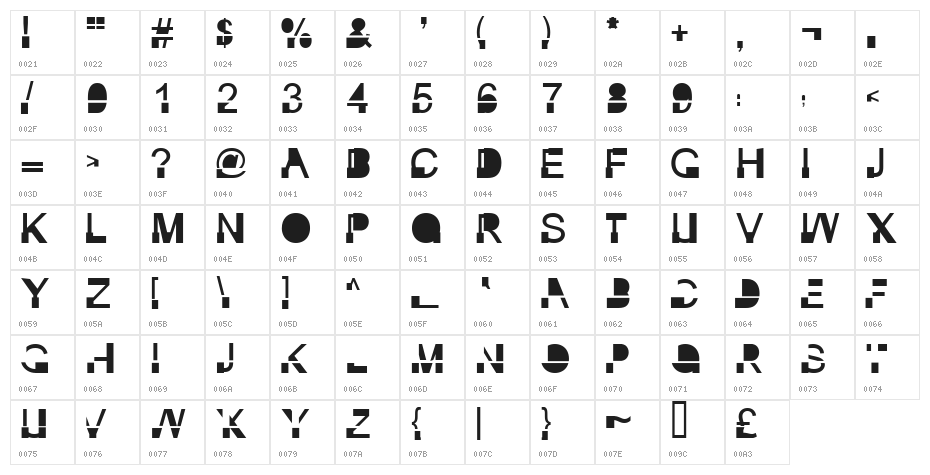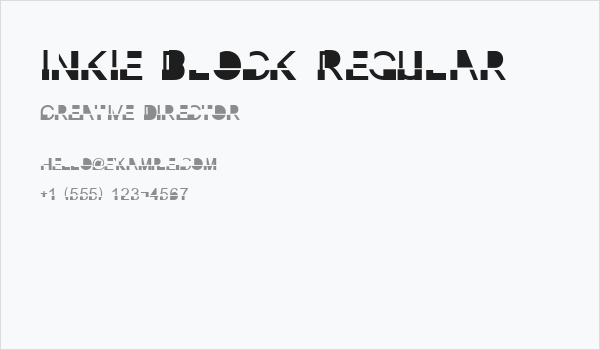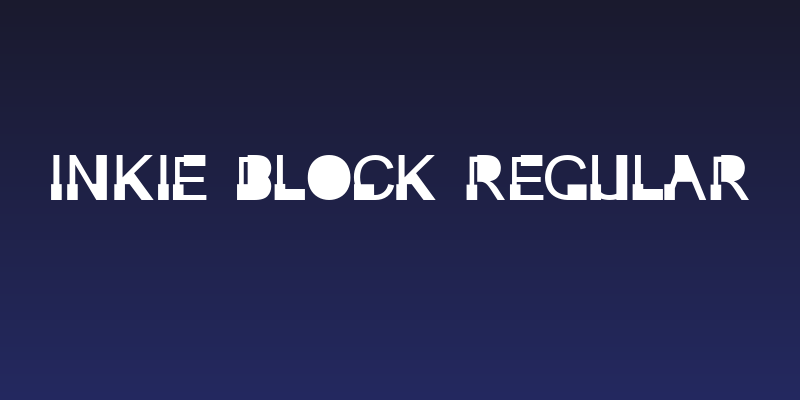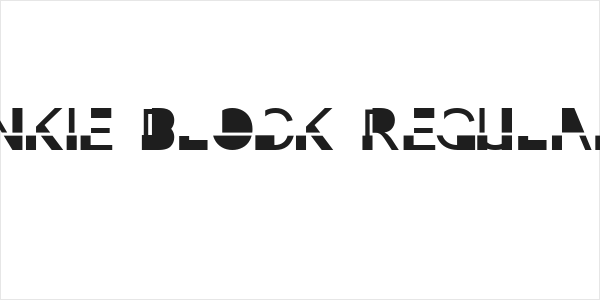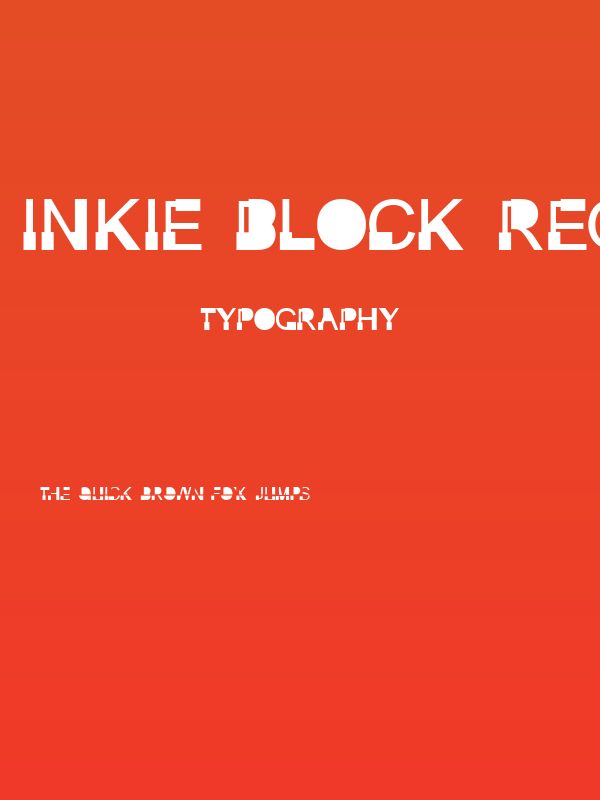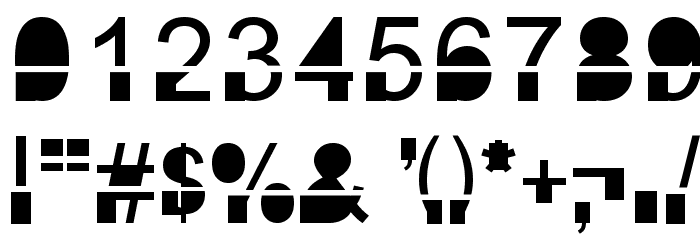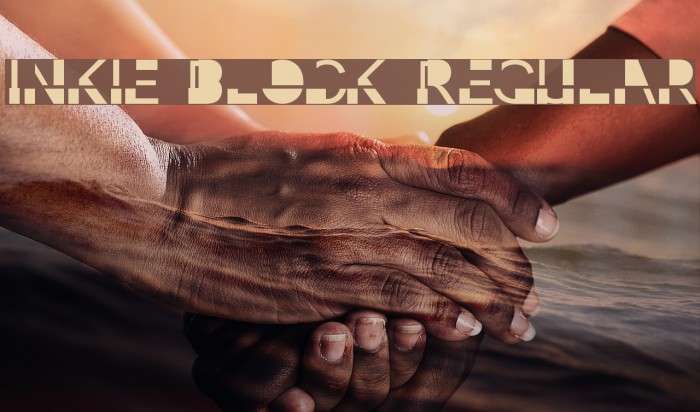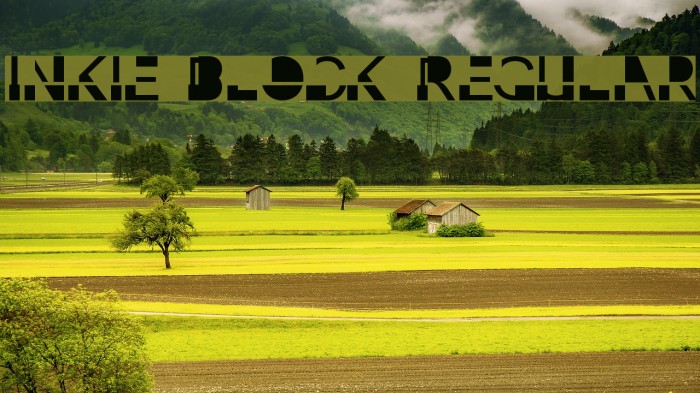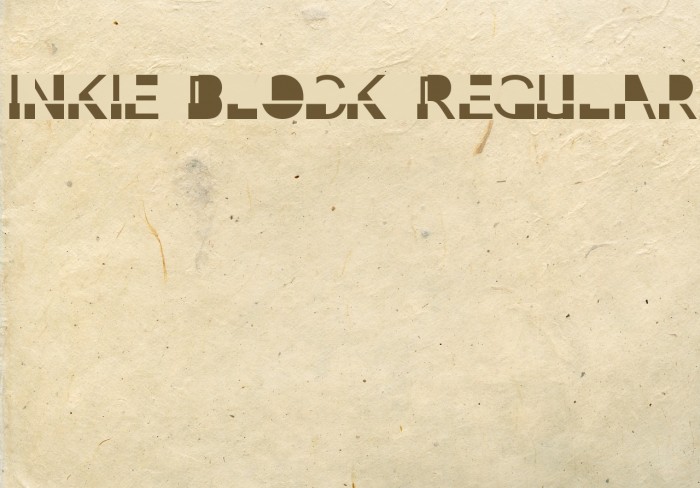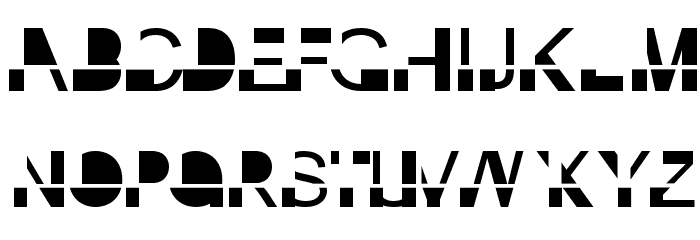
Inkie Block Regular Font
Inkie Block Regular Description
This font features a bold, geometric design with a distinct blocky appearance. Each character is crafted with a unique cut-out style, creating a striking visual effect. The uppercase letters are particularly prominent, with strong horizontal and vertical lines that give them a robust and modern look. The lowercase letters maintain the same boldness, ensuring consistency across the typeface. Numbers and special characters are designed to match the overall aesthetic, making this font suitable for attention-grabbing headlines and creative projects. Its high contrast and unique style make it stand out in any design.
| Proposed Projects | Ideal for posters, logos, branding, and any project requiring a modern, eye-catching typeface. |